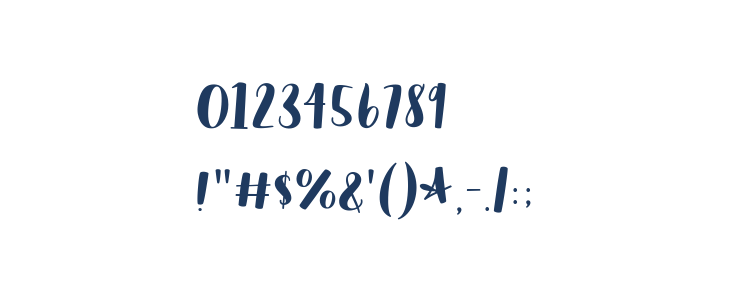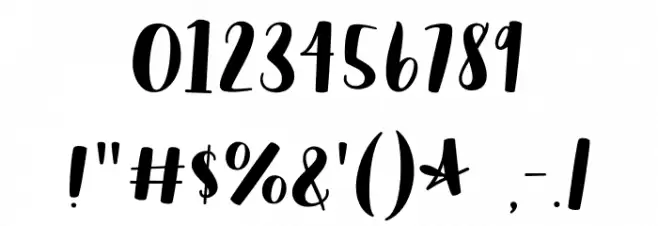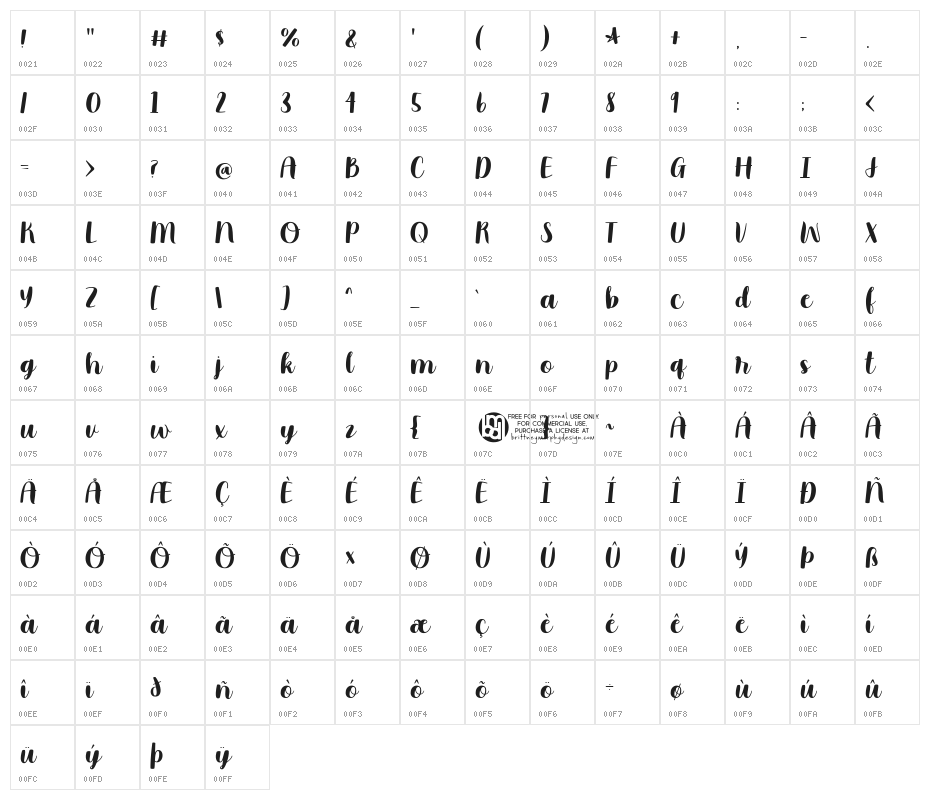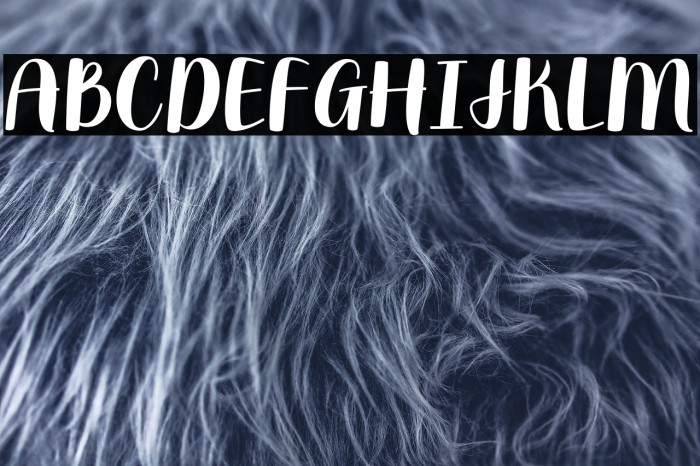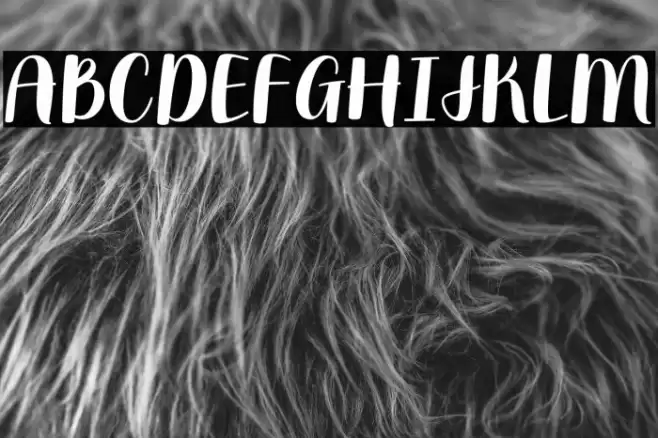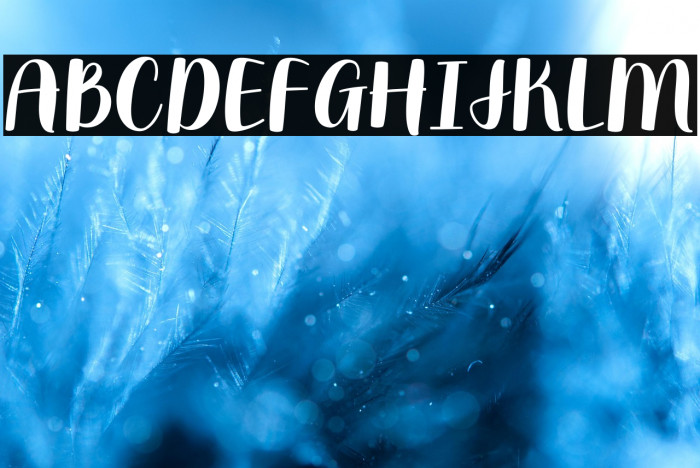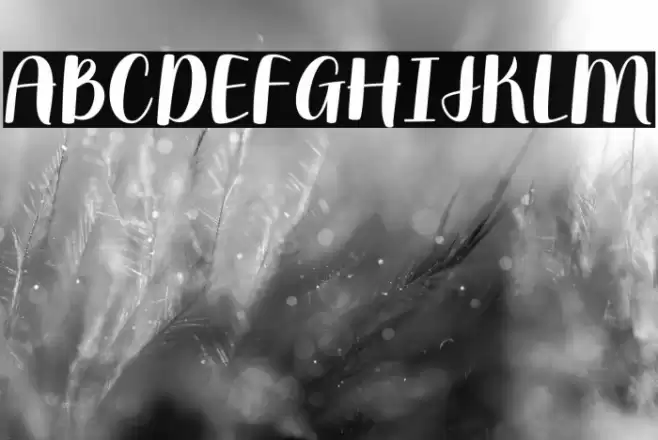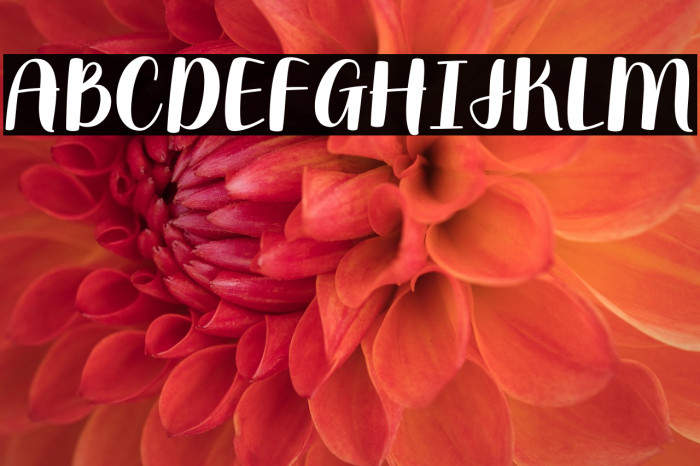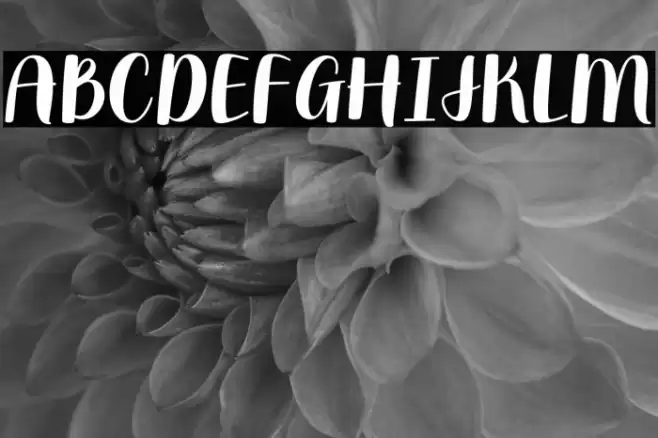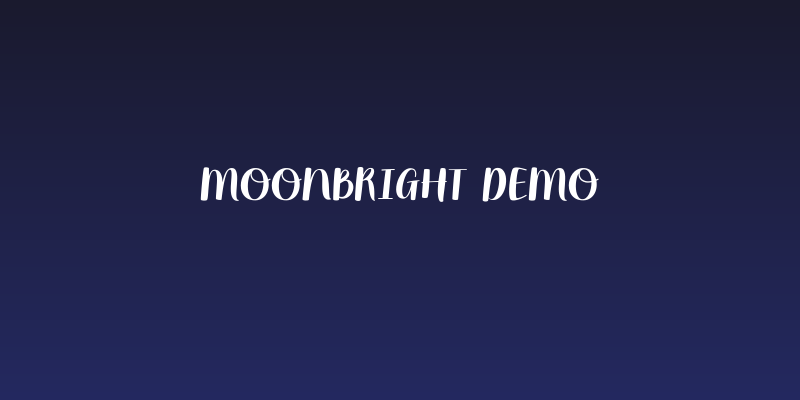
Moonbright Demo Font
Moonbright Demo Description
This font features a playful and flowing script style, characterized by its smooth, rounded curves and elegant, connected strokes. The uppercase letters are bold and dynamic, with a slight slant that adds a sense of movement and energy. The lowercase letters maintain a consistent flow, enhancing readability while retaining a stylish flair. Numbers and special characters are designed to complement the overall aesthetic, making them suitable for a variety of creative applications. The font's design is both modern and timeless, offering versatility for various design projects.
| Proposed Projects | Ideal for wedding invitations, greeting cards, branding, and social media graphics. |